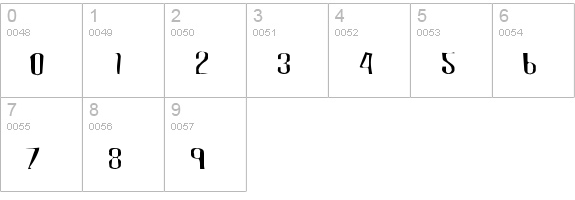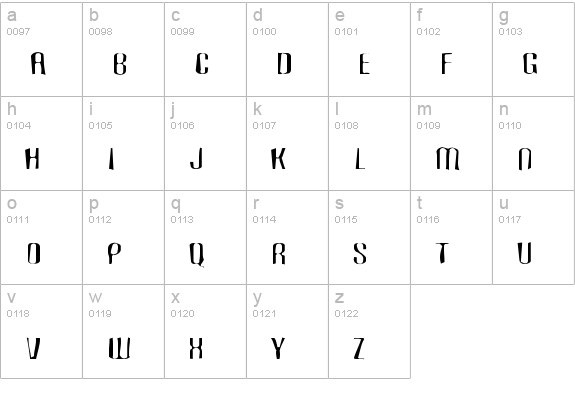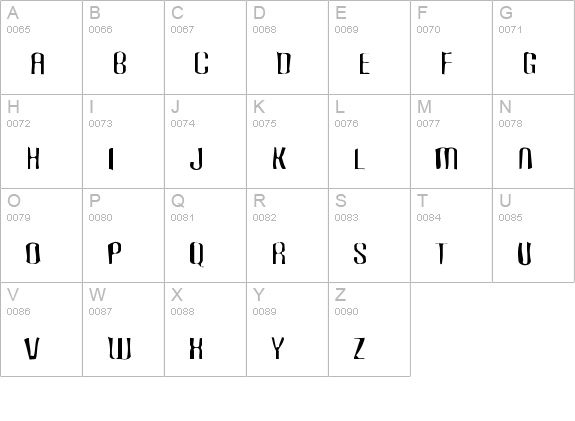
Carbon Block Gaunt font is a sleek and modern typeface that exudes sophistication and elegance. Its sharp angles and clean lines make it perfect for a wide range of design projects, from branding to editorial content. The font's bold presence on the page demands attention and conveys a sense of strength and confidence. What sets Carbon Block Gaunt font apart is its unique combination of geometric shapes and minimalist design elements, creating a visually striking aesthetic that is sure to make your text stand out. Whether you're working on a poster, website, or logo, this font will add a touch of contemporary flair to your project. The best part? Carbon Block Gaunt font is available for free download at FontsMarket.com, making it accessible to designers and creatives of all levels. Don't miss out on this opportunity to elevate your work with the stylish and versatile Carbon Block Gaunt font.